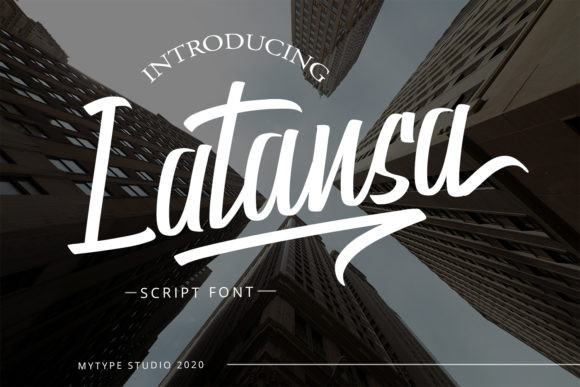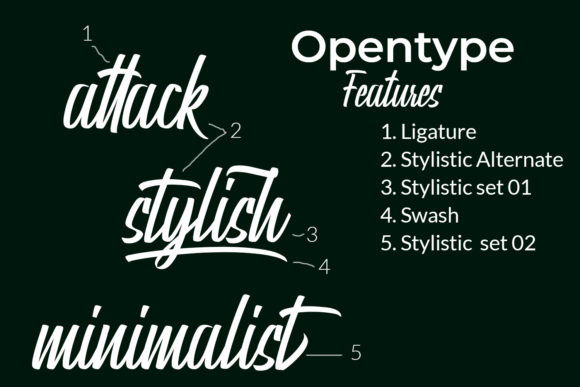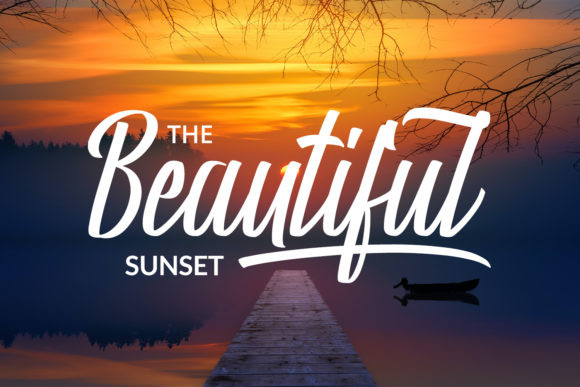
Latansa Font
Latansa is a script font with a bold, elegant and stylish vibe. This font is great for a wide variety of projects such as branding, invitations, logos, t shirts and anything that requires a handwritten style.